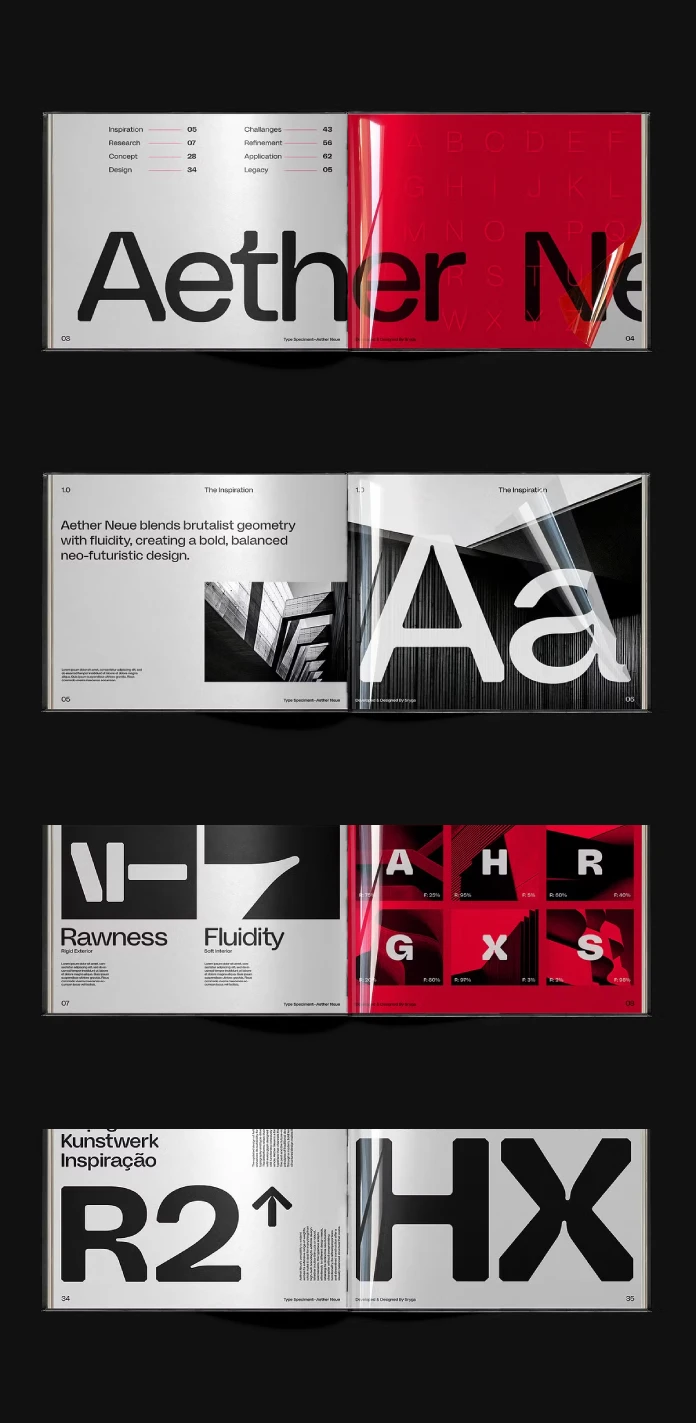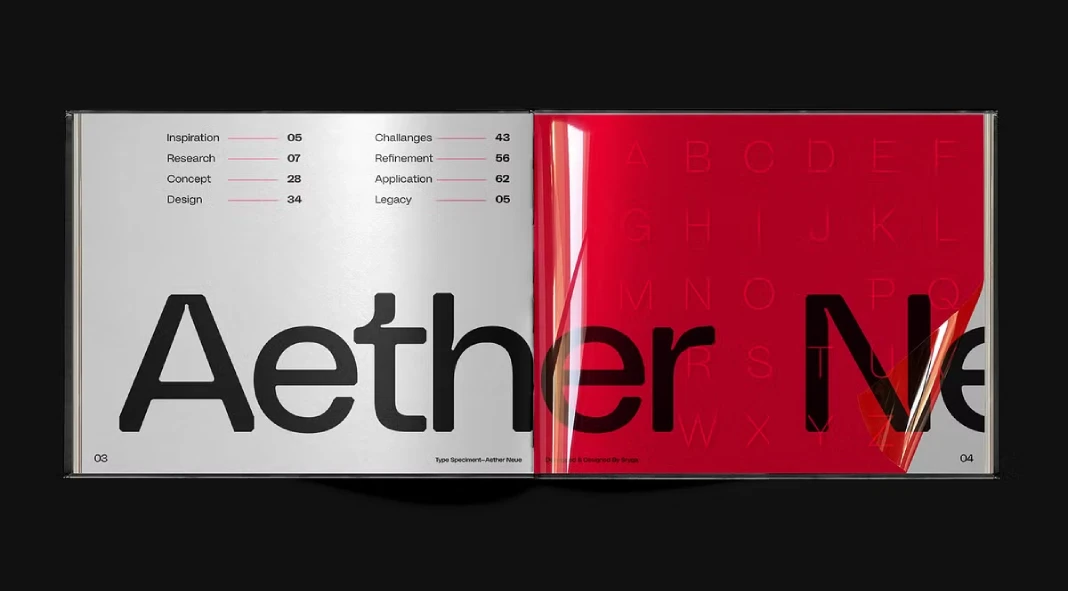
Is Aether Neue the Futuristic Font Your Designs Have Been Waiting For?
Have you ever scrolled through countless fonts, searching for that one? The one that perfectly captures the essence of innovation and modern design? Maybe something that whispers “future” without shouting it from the rooftops? Well, you might just have found it. Say hello to Aether Neue, a variable inktrap sans serif font family from the talented folks at Sryga.
But what makes a font truly special? Is it just about aesthetics? Or is it about the story it tells, the feeling it evokes, and the way it elevates your designs? We’re going to take a closer look at Aether Neue, exploring its unique features, its design philosophy, and why it’s generating such buzz in the design community. Let’s explore why this variable font family could be the missing piece in your creative arsenal.
A Refined Evolution: What Sets Aether Neue Apart?
Aether Neue isn’t just another font; it’s an evolution. It’s a refined version of the original Aether, painstakingly crafted to push its digital neo-futuristic aesthetic even further. Think of it as Aether, but leveled up! Sryga has meticulously honed every detail, enhancing both its versatility and legibility.
The core of the design process focused on refining the squarish-round letterforms. Imagine smooth curves meeting sharp edges, a dance between contrasting elements. The interplay between these shapes is what gives Aether Neue its distinctive character.
Geometric Precision Meets Fluidity: The Design DNA of Aether Neue
What happens when you combine geometric precision with fluid movement? You get something special. Diagonal elements, like those found in the letters A, X, and K, have been meticulously re-engineered in Aether Neue. The goal? To create a stronger geometric rhythm. This gives the font a sense of stability and visual interest.
Additionally, the inside corners have been softened, making them more balanced and legible, especially when used at smaller sizes. It’s this careful attention to detail that makes Aether Neue not only visually appealing but also incredibly practical.
The font’s design is more than just aesthetics; it’s a reflection of a design philosophy. Aether Neue captures a seamless fusion of rigidity and fluidity. It embodies a harmonious blend of futuristic constraints and dynamic flow, making it a perfect choice for projects that demand a forward-thinking aesthetic.
Why Choose Aether Neue? Unleashing its Versatility
So, why should you consider adding Aether Neue to your font library? The answer lies in its versatility. This font is a chameleon, capable of adapting to a wide range of design applications.
Are you working on a website for a tech startup? Aether Neue can give it that cutting-edge feel. Designing a poster for a futuristic art exhibition? This font will add a touch of sophistication and intrigue. Creating a branding package for a company that values innovation? This typeface is your go-to choice.
Inktraps and Variable Fonts: A Modern Design Advantage
Aether Neue features inktraps, small recesses strategically placed in the corners of letterforms. These inktraps aren’t just decorative; they serve a practical purpose. In print, they prevent ink from pooling in the corners, ensuring clean and crisp letterforms. In digital applications, they add a unique visual element that enhances readability.
The font family also comes with a variable font option. This allows you to fine-tune the font’s weight and width, giving you even more control over its appearance. Imagine the possibilities! You can create endless variations, tailoring the font to perfectly match your design needs.
Behind every great font is a talented designer, and in this case, it’s Sryga. Sryga is an independent small studio, pouring passion and expertise into crafting exceptional typefaces.
The Aether Neue font family is a versatile design asset that will undoubtedly elevate your projects. Its unique blend of rigidity and fluidity makes it a standout choice. So, give it a try! Explore its possibilities and see how it can transform your designs.